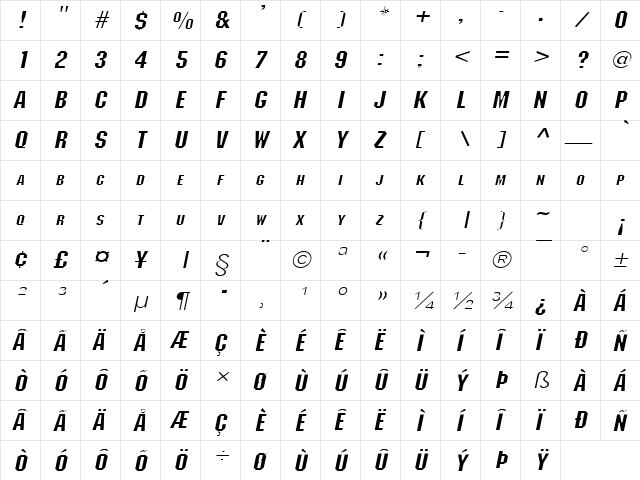
Block Wide Italic
Design Context for Block Wide Typeface
Block Wide is a composed and adaptable typeface that performs quietly and consistently across a wide range of design contexts. Its italic angle brings a sense of urgency and motion to the letterforms.
Pro Tip: Try Block Wide for annotation and caption copy alongside an upright companion — the contrast in angle creates a dynamic but ordered typographic system.